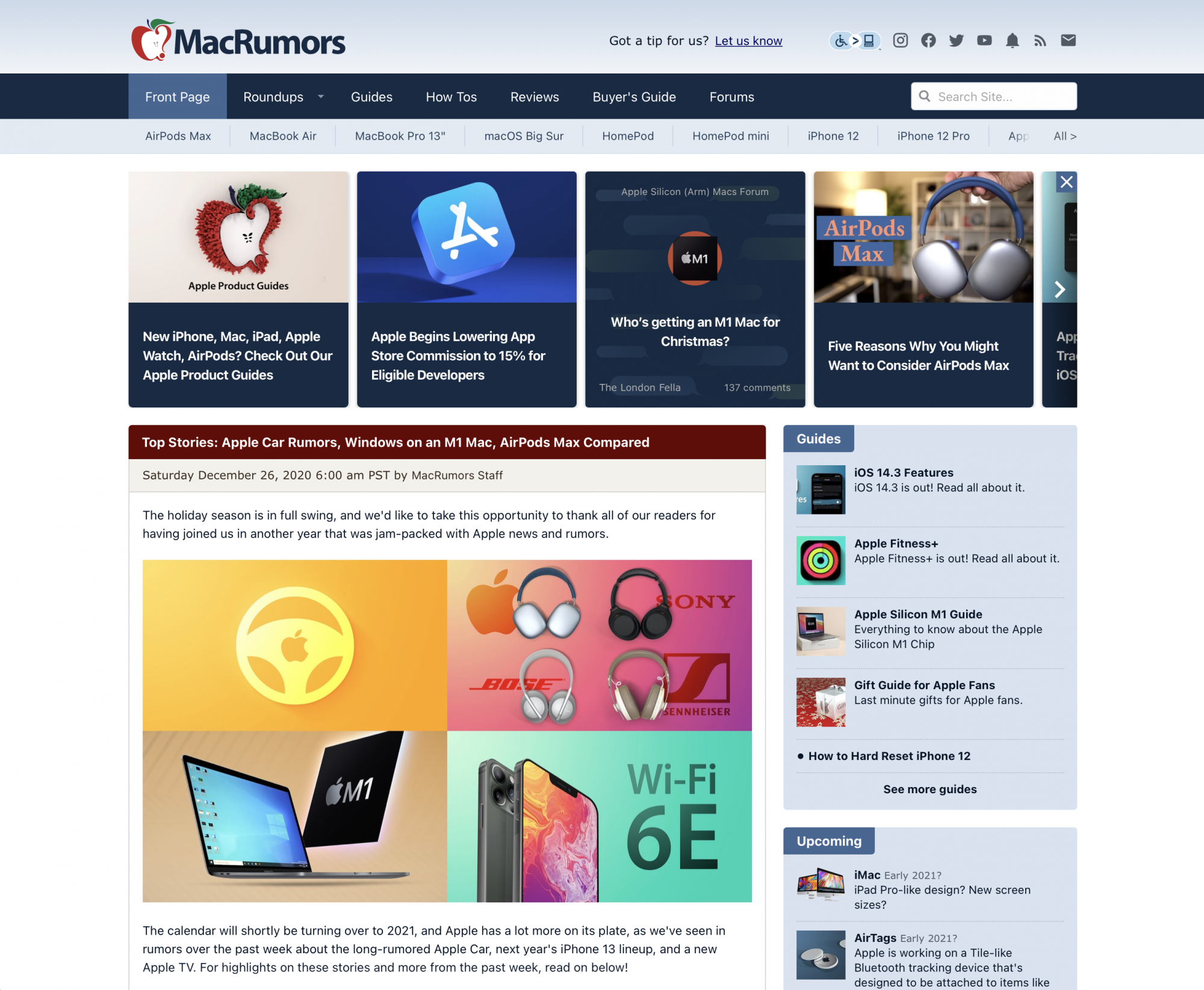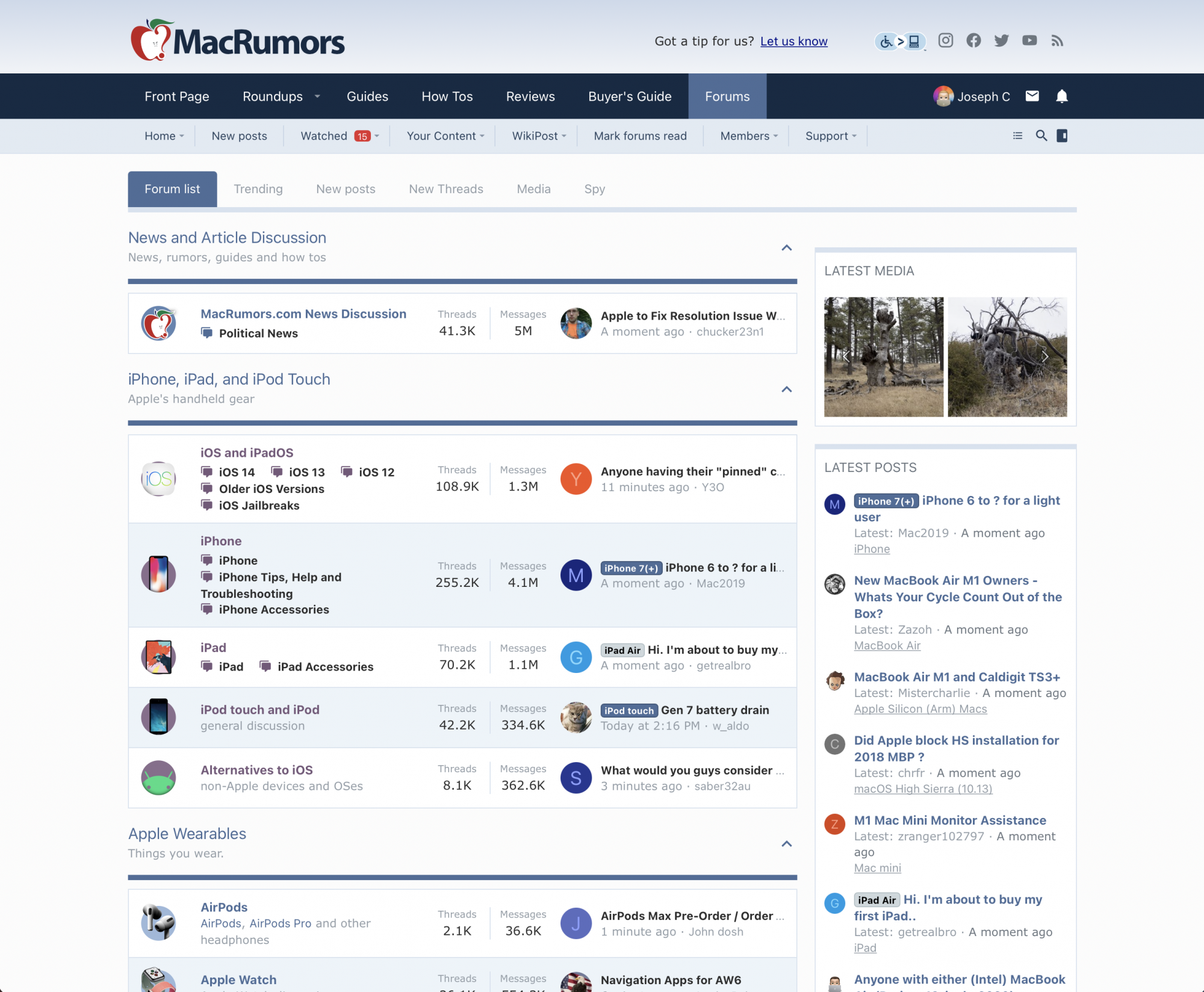
Does anyone find it ironic that the forum font used across Macrumors is Verdana, a Microsoft system font from the 1990s. I am aware of its readiblity at small sizes, high X height etc. But are there not any alternative Apple-esque or more modern fonts that could have been chosen?
Yes, but you can use webfonts these days (downloaded when you view the site). You don't have to stick to what the user has installed.
Does anyone find it ironic that the forum font used across Macrumors is Verdana, a Microsoft system font from the 1990s. I am aware of its readiblity at small sizes, high X height etc. But are there not any alternative Apple-esque or more modern fonts that could have been chosen?
Garamond is a beautiful, elegant and exceptionally legible font, one that dates from the time of the Renaissance, but one which (well, a modified version of which) was used by Steve Jobs.
Personally, I love it, and would like to see it in widespread use.
Which Garamond? I tried both Apple and EB Garamond but they don't seem to work so well on websites.
So far, I'm finding that Proxima Nova, Avenir Next and Gotham all look extremely nice in web usage.
You have to license web fonts, which is probably not worth it for a forum where most of its traffic is from web searches.
How about Raleway then?
Also looks great to me, and free to licence.
I wonder if the font has always been Verdana or not. At this point it's been so many years it's just text to me, I can't remember fonts very well. Could always take a look at the Web Archive for this.
also want to point out that Material Design is yucky. I use this site at 75% zoom because I feel the elements are too large by default. Text does get harder to read so I have to zoom it from time to time but not horrible. I often just use the Ctrl zoom on my Mac to do so.
Which Garamond? I tried both Apple and EB Garamond but they don't seem to work so well on websites.
So far, I'm finding that Proxima Nova, Avenir Next and Gotham all look extremely nice in web usage.
Fair enough; however, Garamond works exceedingly well on the printed page (which is not the same thing as online, and works well as text).
Notwithstanding all that, font preferences are a very subjective matter of personal taste.
For example, I still like Times New Roman, but some see it as an old fashioned font.
Font preferences are also a matter of context. I like many fonts that would be useless for reading body text in a forum. So I'm curious what might work. A lot of the classic "A grade" fonts just collapse when used at small pt size on a webpage.
I'm currently viewing this website using the following .css script in the Stylus Extension, and it looks far better than the original:
@font-face {
font-family: "Verdana";
src: local("Raleway-Regular");
}
@font-face {
font-family: "Verdana";
src: local("Raleway-Bold");
font-weight: bold;
}
It should really default to "-apple-system,system-ui" before Verdana. I have added this as user style using Cascadea on p,h1,h2,h3,a,span,div and it works quite well: